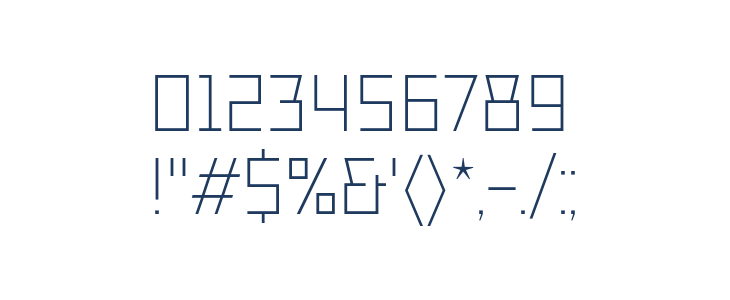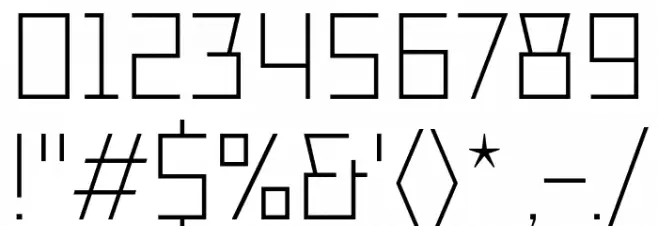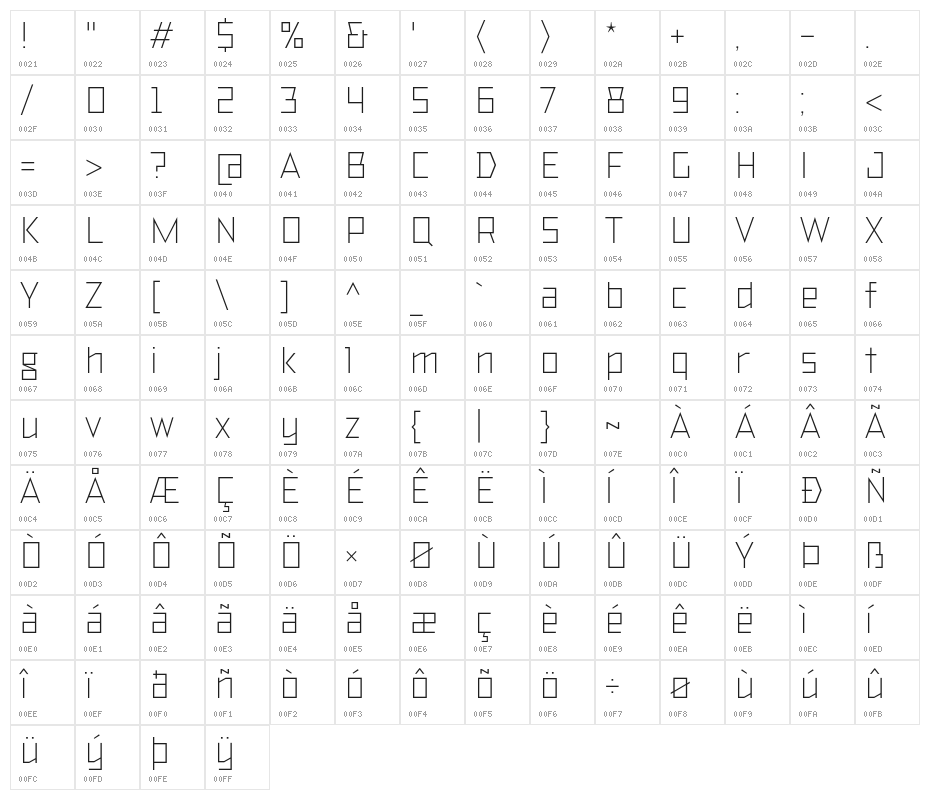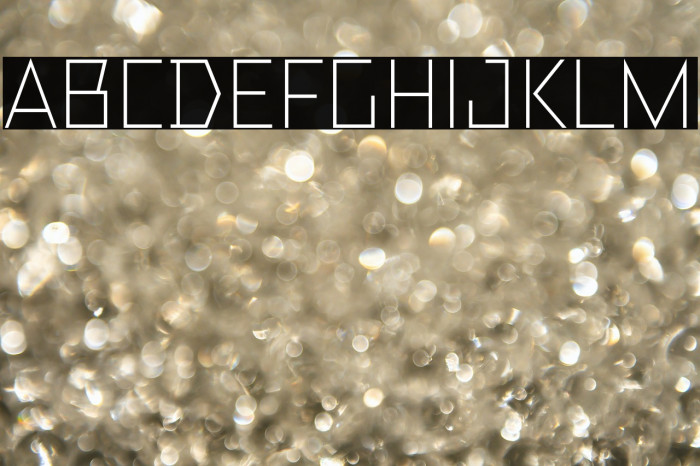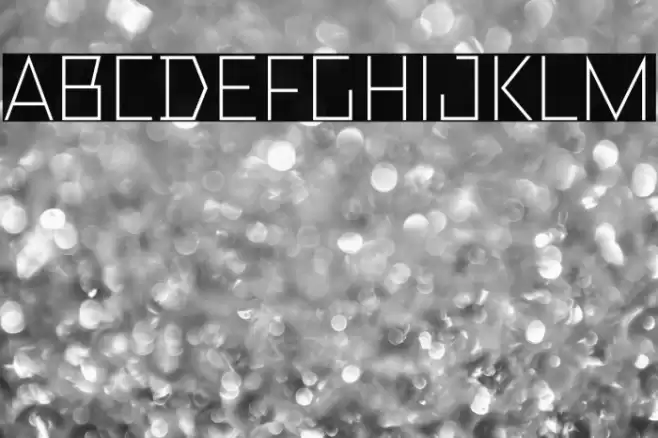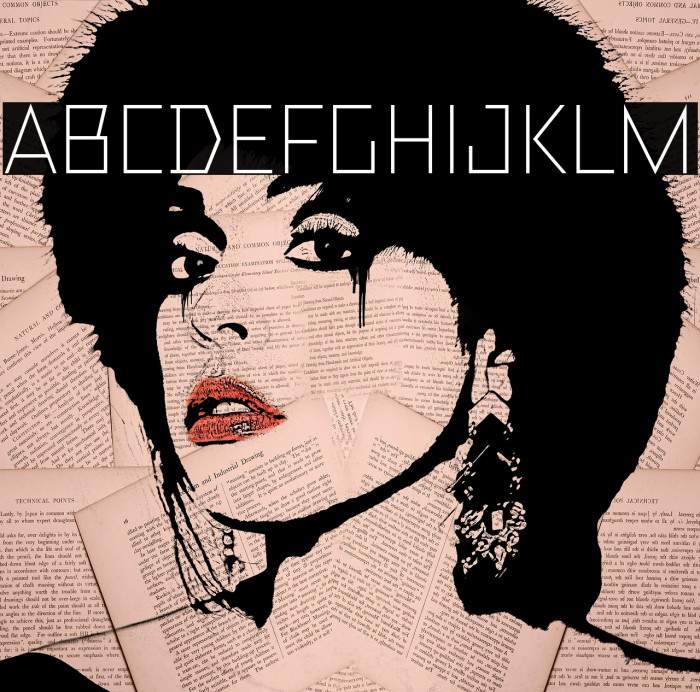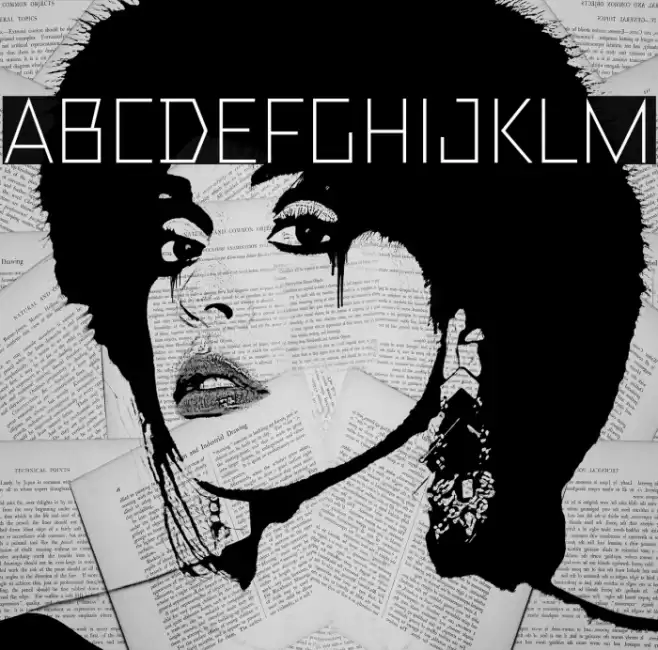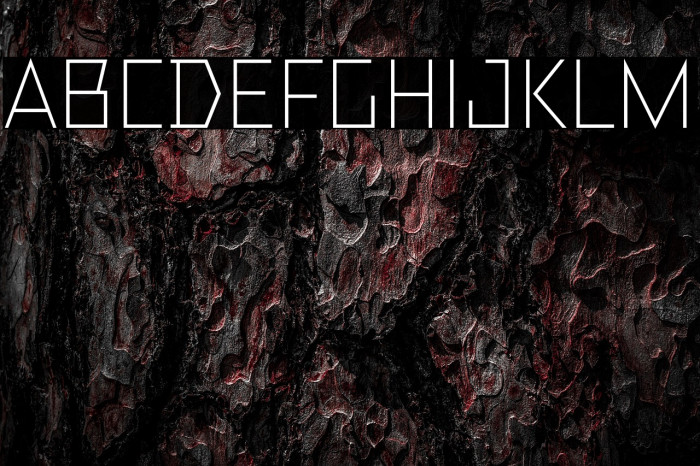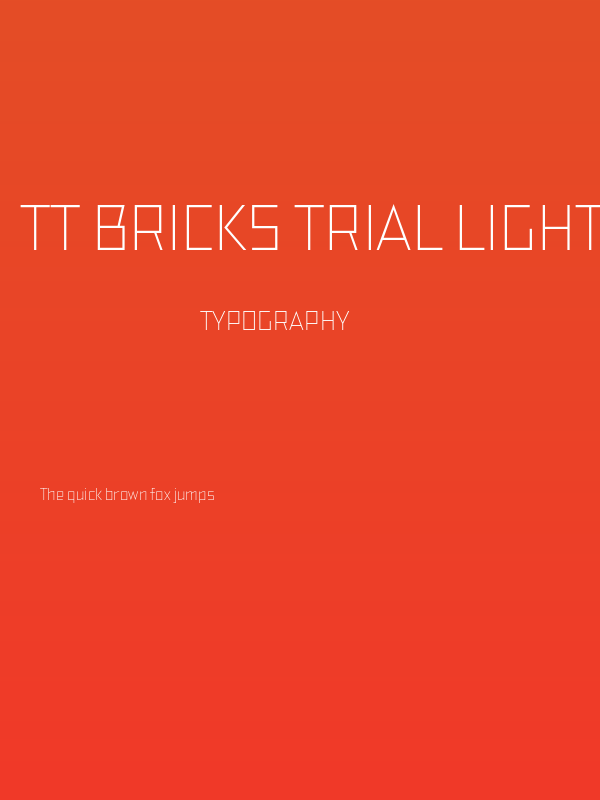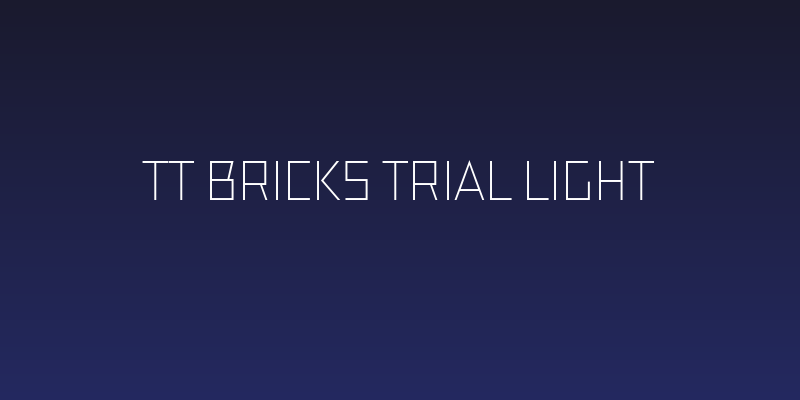
TT Bricks Trial Light Font
TT Bricks Trial Light Description
This font features a geometric and modern design with a distinct architectural feel. The characters are constructed with straight lines and sharp angles, giving it a structured and precise appearance. The uppercase letters have a uniform height, while the lowercase letters maintain a consistent baseline, enhancing readability. The numerals and special characters follow the same geometric style, ensuring a cohesive look across all text. The font's clean lines and minimalistic design make it suitable for contemporary projects that require a sleek and professional aesthetic.
| Proposed Projects | Ideal for architectural branding, modern websites, tech startups, and minimalist graphic design projects. |